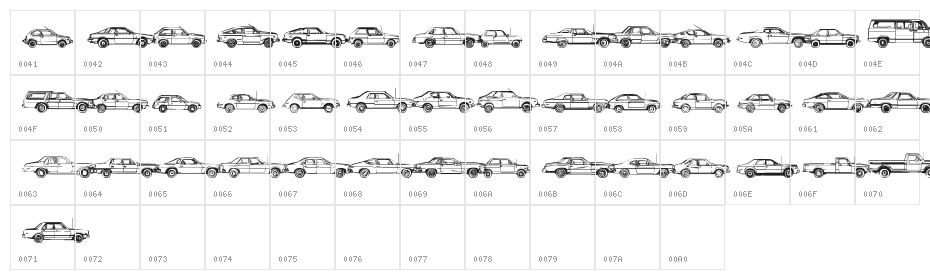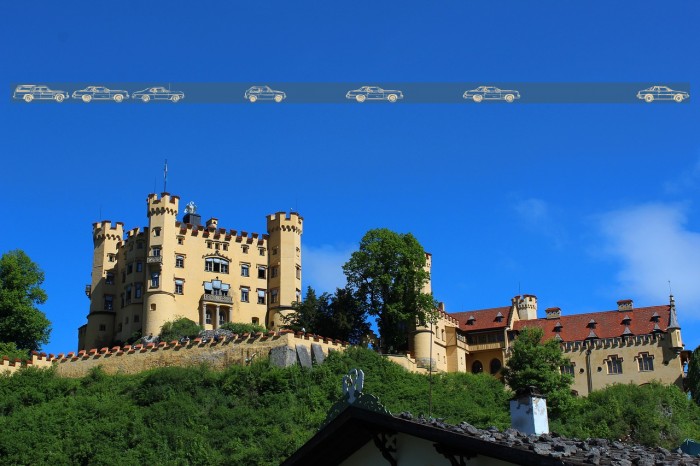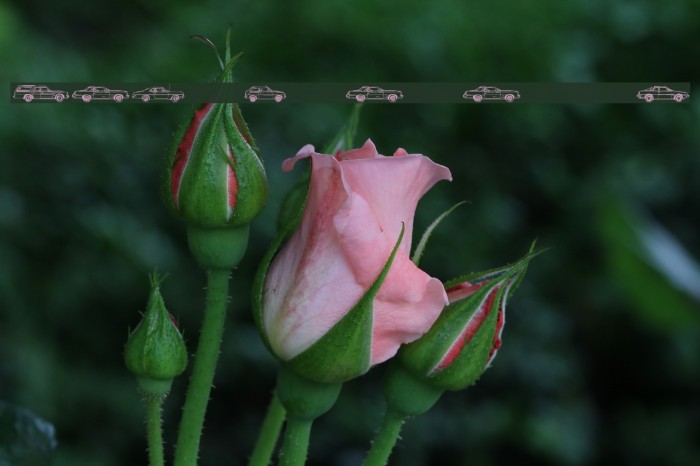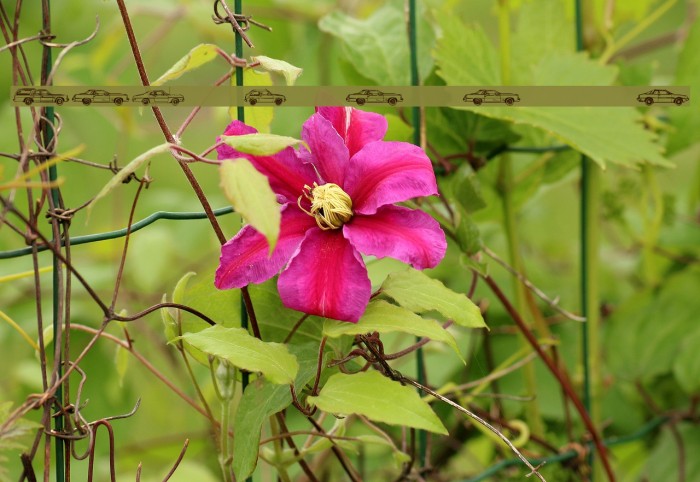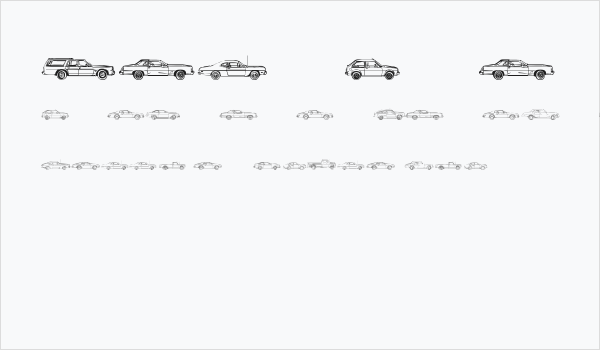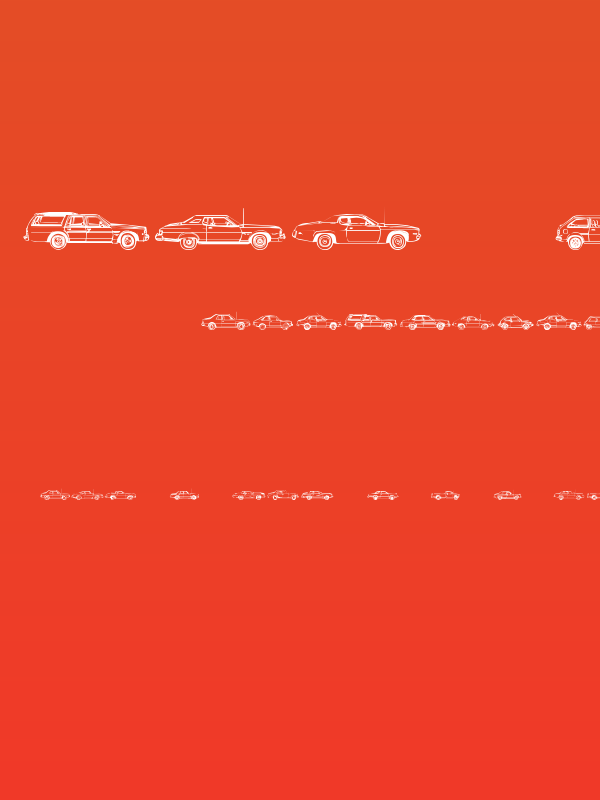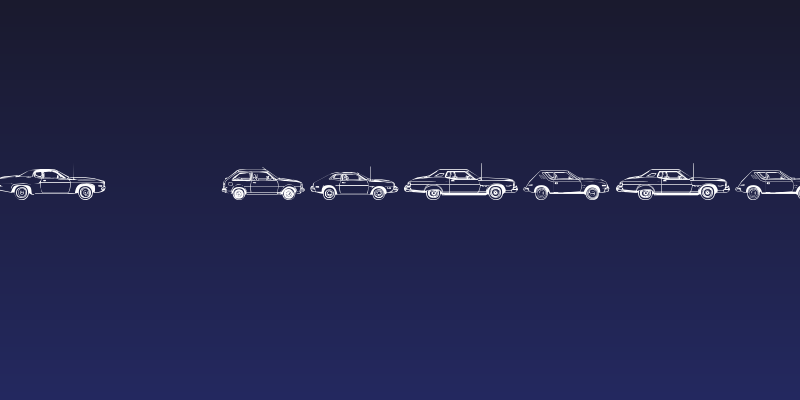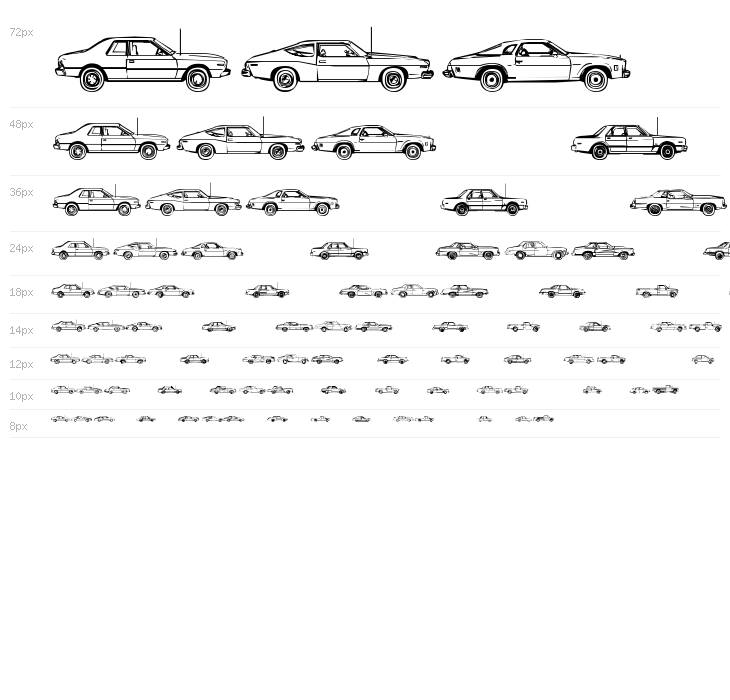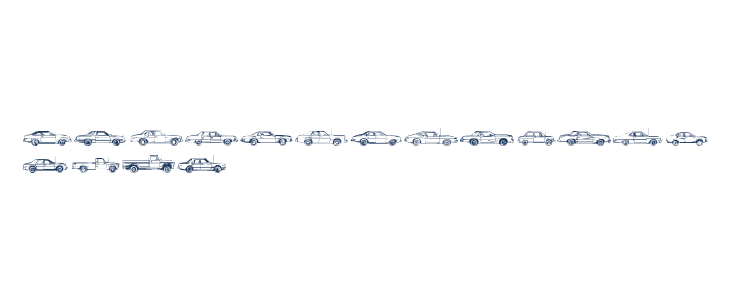
Oil Crisis B Font
This is not a traditional font but rather a collection of car illustrations arranged in the format of an alphabet and numerical set. Each character is represented by a unique car drawing, showcasing a variety of vehicle styles. The design is intricate, with detailed line work that captures the essence of different car models. This set is more of an artistic representation rather than a functional typeface, making it suitable for creative projects that require a thematic automotive element.
Use CaseLogos, Decorative elements
Proposed ProjectsIdeal for automotive-themed posters, creative design projects, or educational materials about cars.